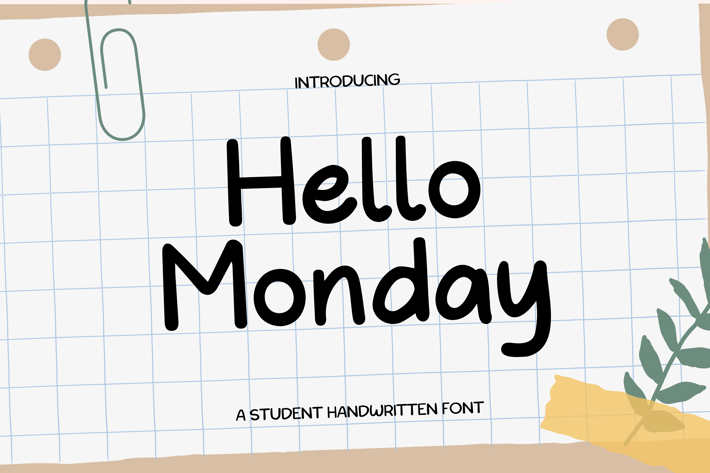
Hello Monday - Student Handwritten Font
Hello Monday is a casual handwriten font with natural stroke. This font will be perfect for notes, product description, headline, product paragraph, logos, branding and many more.